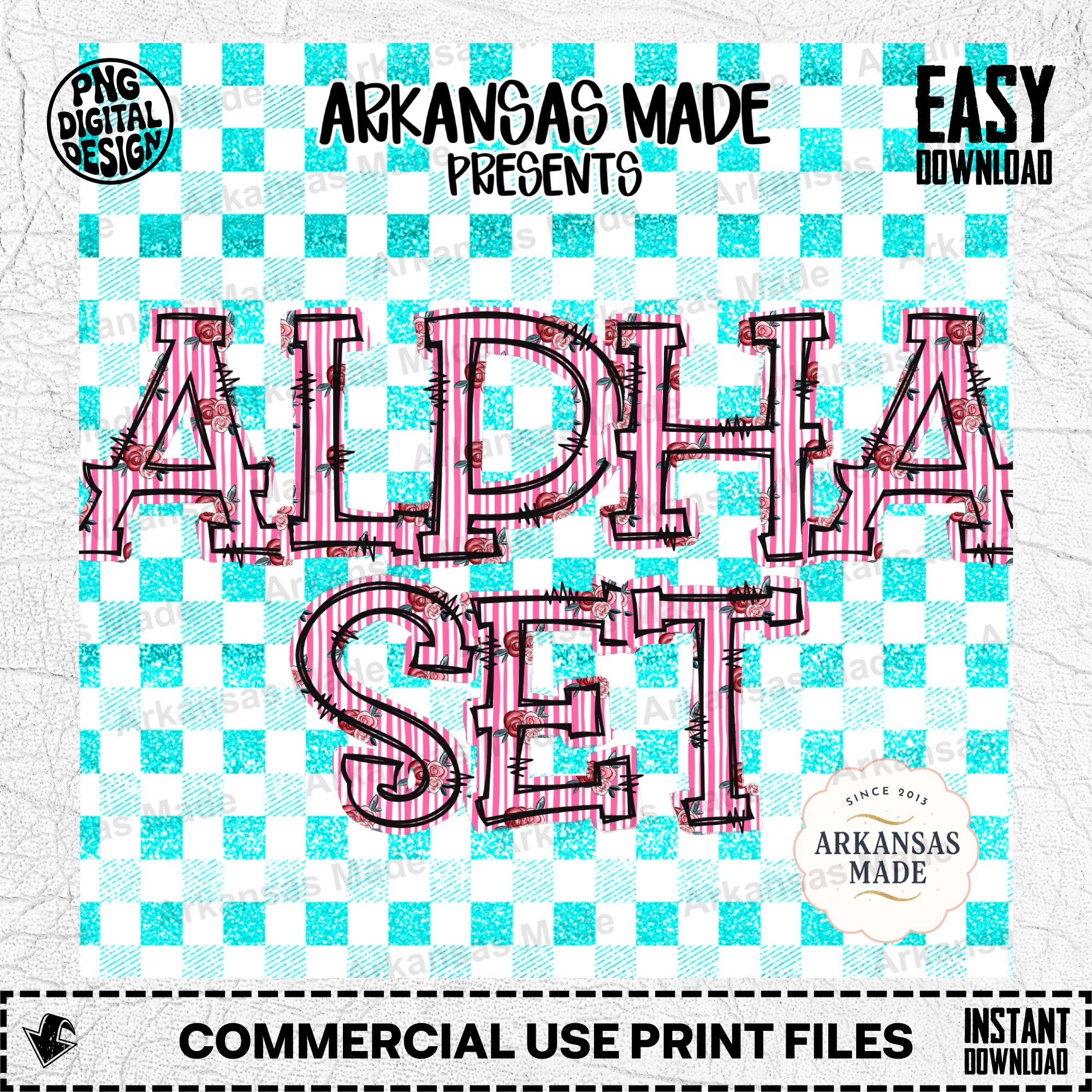
Elevate your designs with this vibrant Pink Stripes Roses Barbed Wire Alpha Set PNG. Perfect for sublimation, crafting, and digital projects. This edgy floral digital download features a unique blend of feminine roses and bold, punk-inspired outlines, making it ideal for those who love a sweet and sassy aesthetic. Crafters and small business owners can create stunning custom apparel, personalized gifts, or standout digital art for birthdays, bachelorette parties, or unique everyday items. It’s a fantastic addition for anyone seeking a distinctive, trendy alphabet.